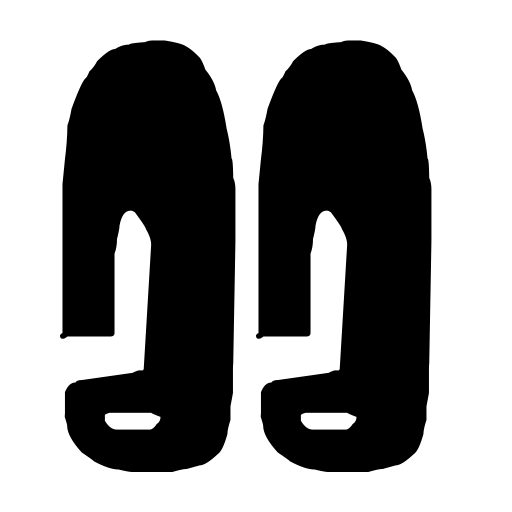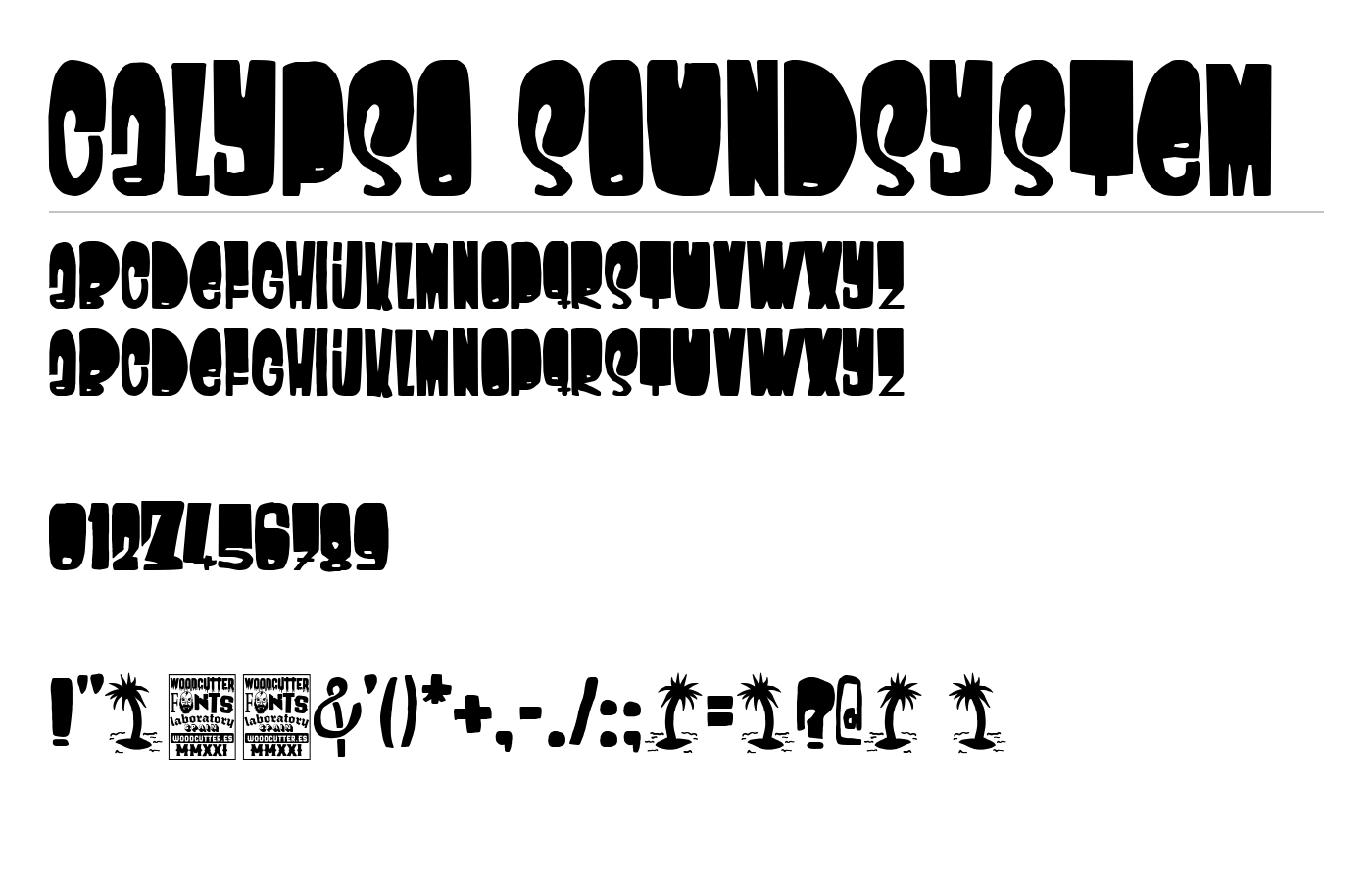
Calypso Soundsystem is a bold, playful display font with thick, rounded letterforms that evoke a fun and casual vibe. Its chunky, somewhat irregular shapes and lively quirks make it ideal for eye-catching headlines, event posters, and brands seeking a vibrant, tropical-inspired personality. This font works best in creative and informal contexts where a sense of energy and uniqueness is key.
Calypso Soundsystem Font
About Calypso Soundsystem Font